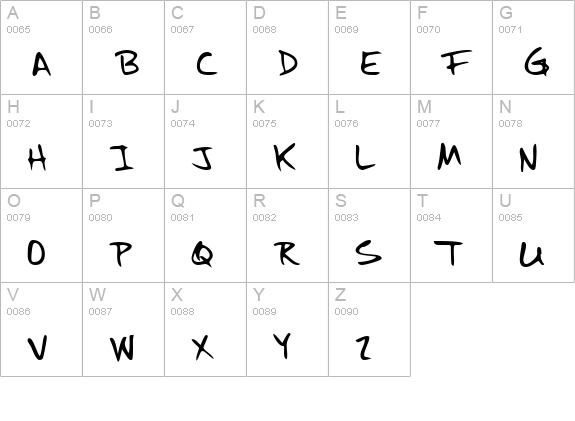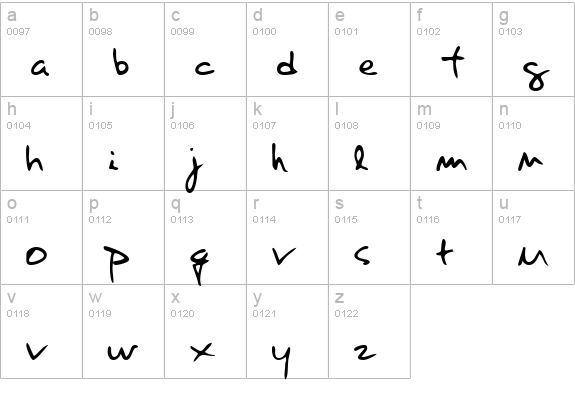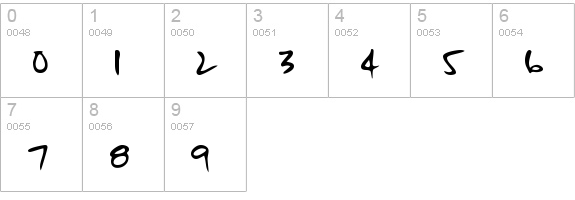
HaleysHand Regular Font Details
HaleysHand Regular is the standard, neutral variant in the HaleysHand typeface family \xE2\x80\x94 well suited to general body text, paragraphs, and standard typographic work.
HaleysHand Regular font is a delightful and charming typeface that exudes a sense of effortless elegance. With its graceful strokes and gentle curves, this font brings a touch of sophistication to any project. Perfect for adding a personal and handwritten touch to invitations, greeting cards, logos, and more, HaleysHand Regular font is a versatile choice that will never go out of style. Its clean and legible design ensures readability while maintaining a sense of uniqueness. One of the best aspects of HaleysHand Regular font is that it is completely free! Yes, you read that right. This stunning font is freely available to download at FontsMarket.com, a reliable and trusted source for high-quality fonts. Now you can enhance your creative endeavors without worrying about any additional costs. Whether you are a professional designer or a DIY enthusiast, HaleysHand Regular font is a must-have in your font collection. Its versatility and timeless appeal make it suitable for a wide range of projects, from branding and advertising to wedding stationery and social media posts. So why wait? Head over to FontsMarket.com and download HaleysHand Regular font today. Elevate your designs with this beautiful and freely available typeface that will surely make a lasting impression.